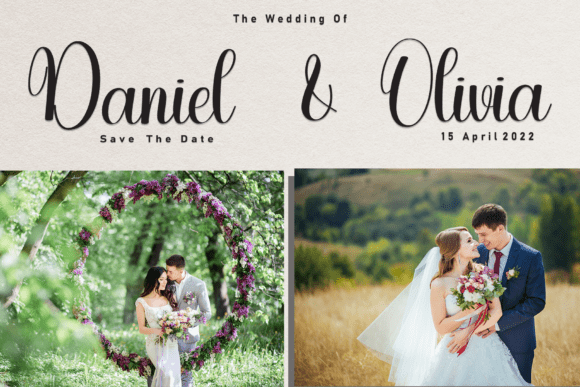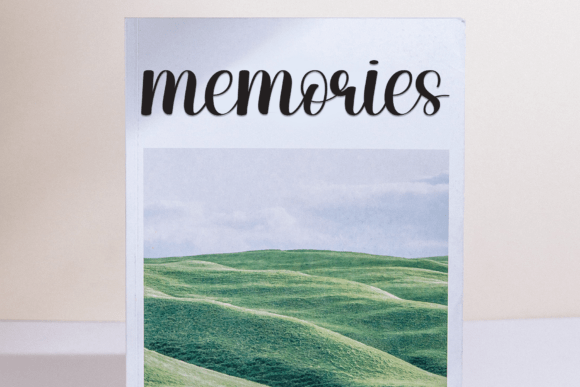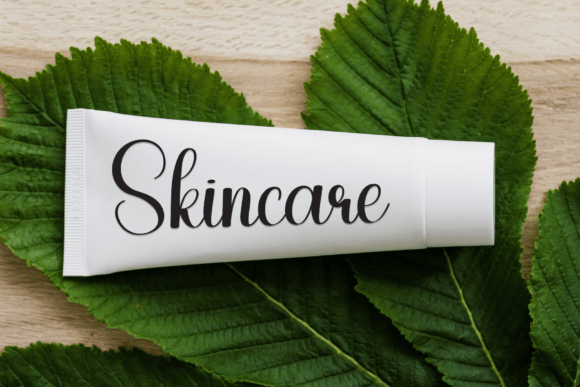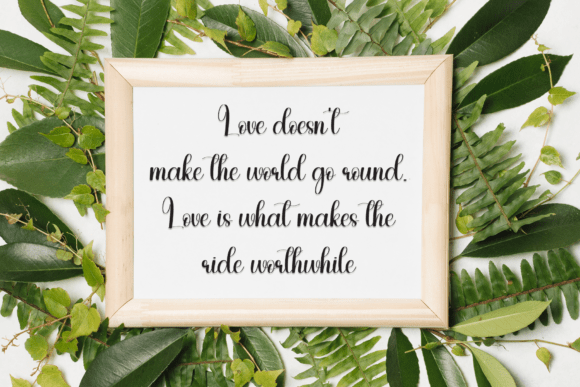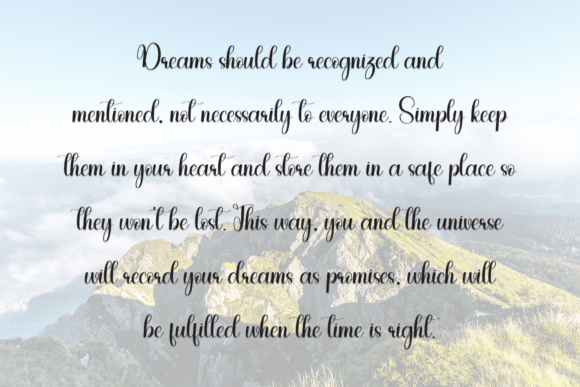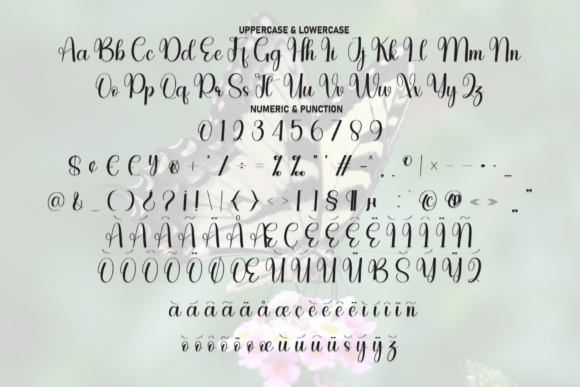
The Elegant Butterfly Font: A Designer’s Dream Come True
This elegant and sophisticated script font captured the essence of my client’s brand, with its graceful, hand-penned aesthetic and rhythmic visual flow. The high-contrast character geometry, including grounded downstrokes and delicate hairline connectors, added a touch of sophistication that elevated the entire design.
- ✅ Elegant and sophisticated script font with a unique, hand-penned aesthetic
- ✅ High-contrast character geometry for a clean, signature-like quality
- ✅ Soaring, horizontally extended swashes that add a touch of drama and flair
- ✅ Perfect for high-end lifestyle branding, boutique photography watermarks, and elegant event stationery
- ⚠️ Limited use of uppercase letters, which can make it less versatile for certain design projects
- ⚠️ Some users may find the font a bit too ornate or over-the-top for certain applications
The Butterfly Font was designed by a team of skilled typographers who wanted to create a font that would evoke the elegance and sophistication of a bygone era. Inspired by the flowing lines and curves of handwritten scripts, they crafted a font that would be perfect for high-end design projects and luxury branding.
Q: What is the Butterfly Font?
A: The Butterfly Font is an elegant and sophisticated script font that captures a graceful, hand-penned aesthetic.
Q: What is the best use for the Butterfly Font?
A: The Butterfly Font is perfect for high-end lifestyle branding, boutique photography watermarks, elegant event stationery, and professional signature-style logos.
Q: Is the Butterfly Font easy to read?
A: Yes, the Butterfly Font is designed to be elegant and sophisticated, while still being easy to read and understand.